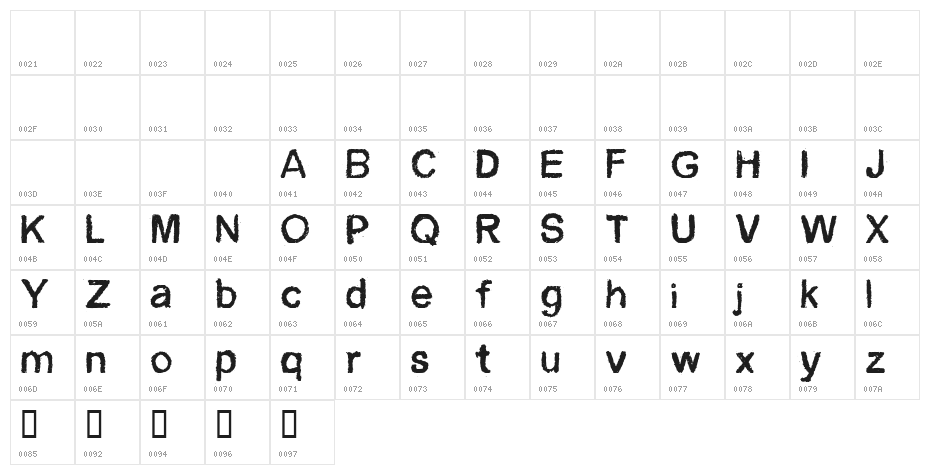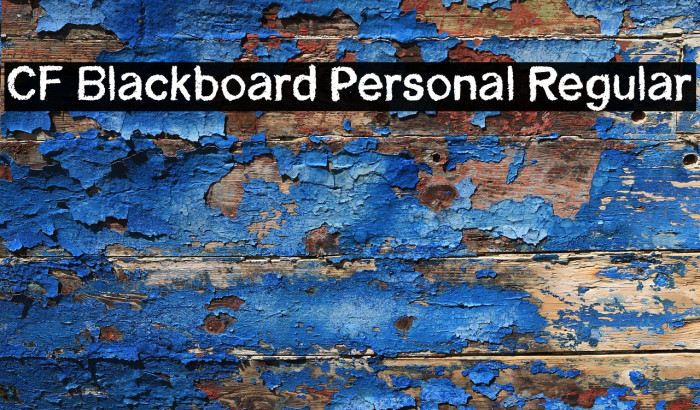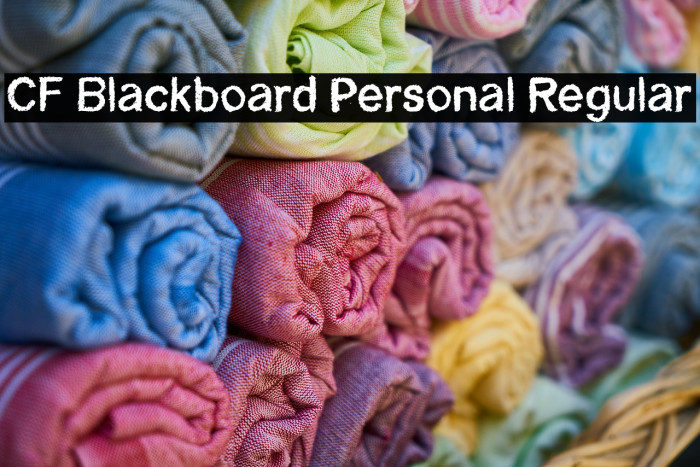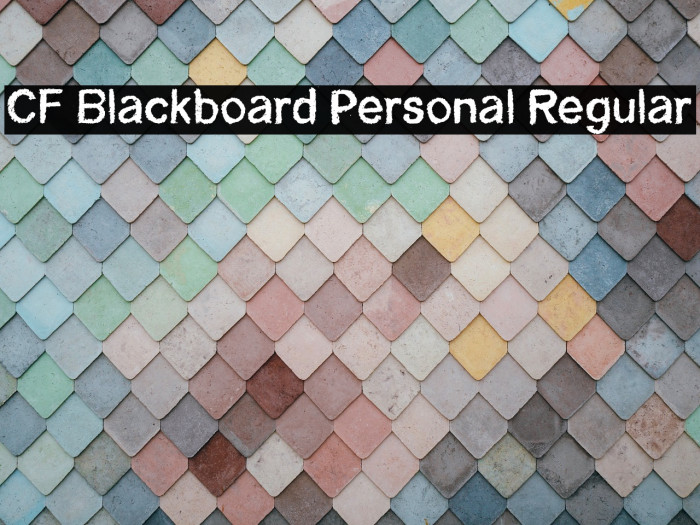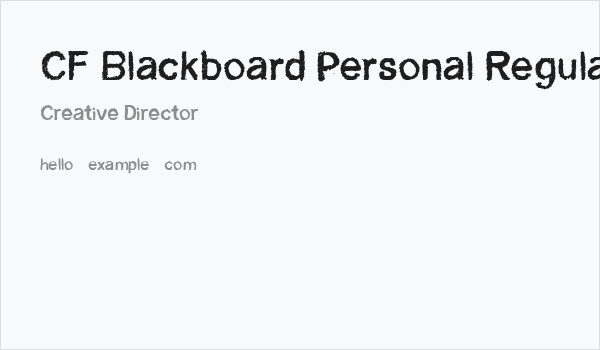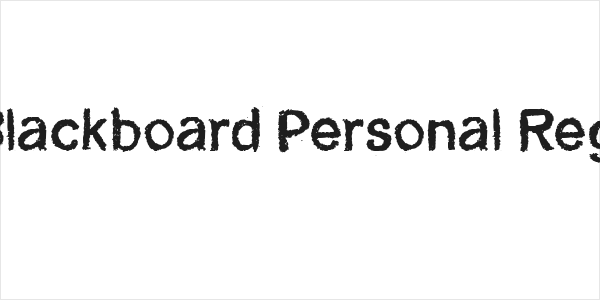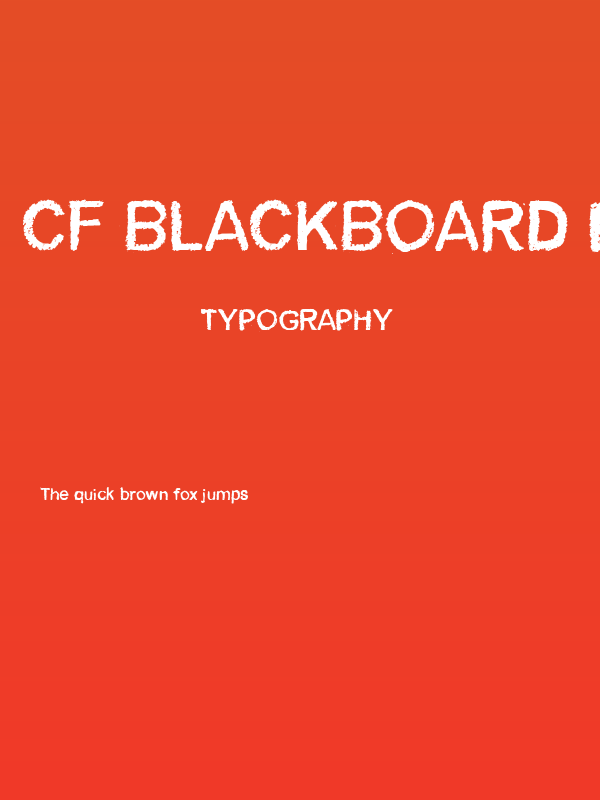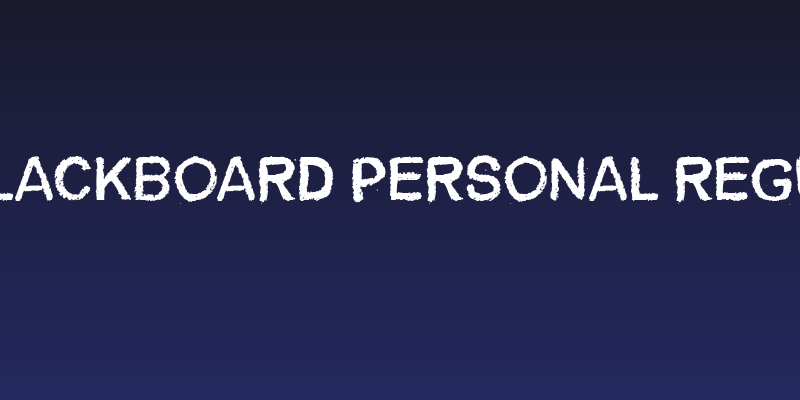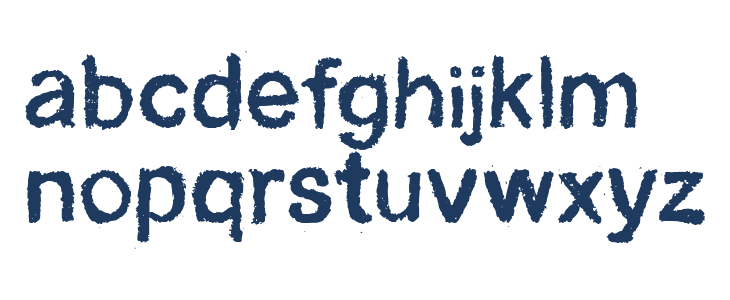
CF Blackboard Personal Regular Font
CF Blackboard Personal Regular Description
This font features a textured, chalk-like appearance reminiscent of writing on a blackboard. The characters are bold and slightly irregular, giving them a hand-drawn, personal touch. The uppercase and lowercase letters maintain a consistent style, with rounded edges and a playful, informal aesthetic. The font's unique texture adds depth and character, making it suitable for projects that require a casual or educational feel. The numbers and special characters are designed with the same chalky texture, ensuring a cohesive look across all text elements.
| Use Case | Headlines, Posters, Educational Materials |
| Proposed Projects | Ideal for educational materials, children's books, playful branding, and creative posters. |